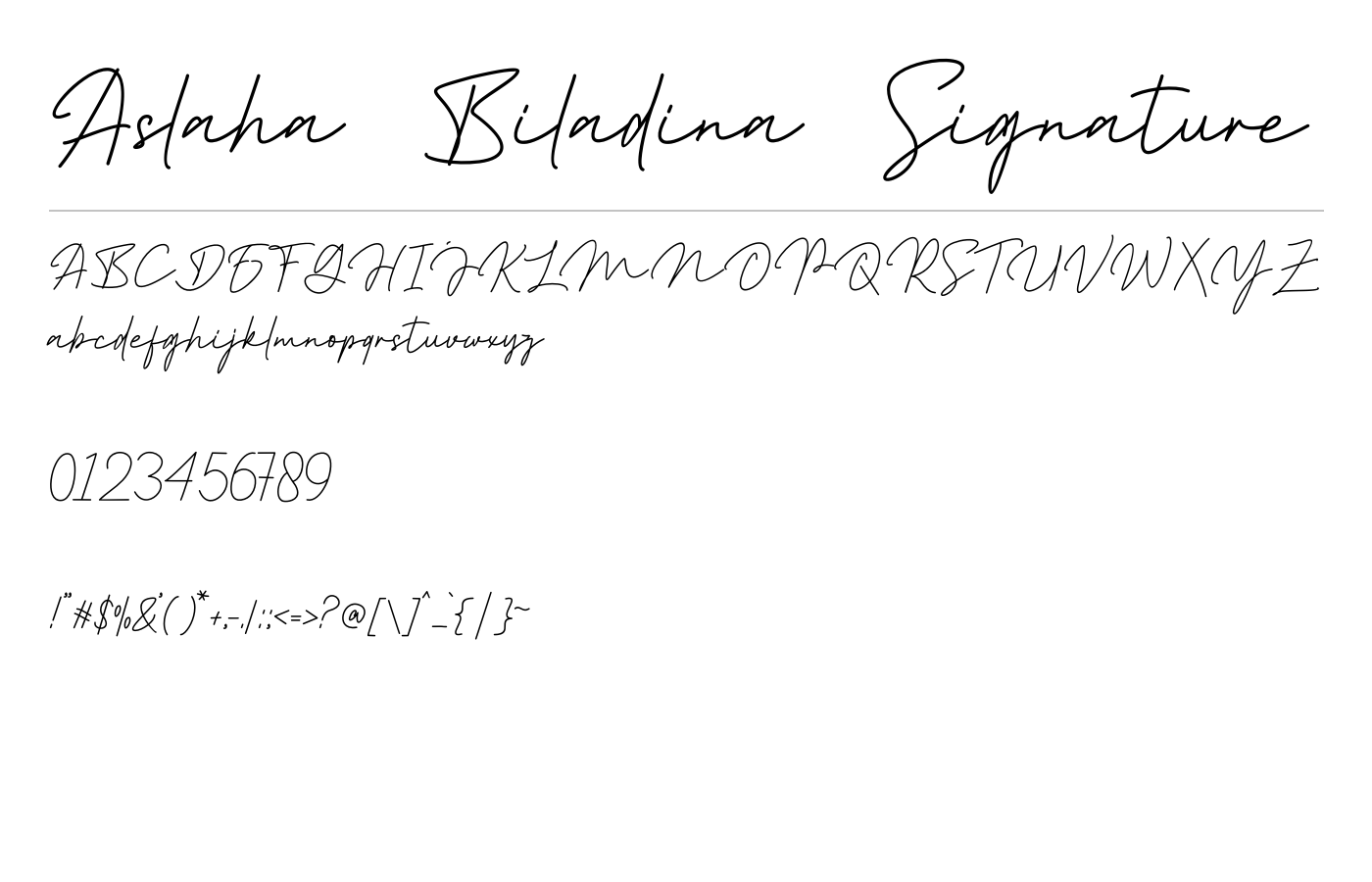
Aslaha Biladina Signature is a delicate, elegant script font that mimics natural handwriting with smooth, flowing strokes and a slim, airy presence. Its thin weight and graceful letterforms convey a personal, sophisticated feel, making it ideal for branding, invitations, and stylish editorial projects where a touch of refinement and authenticity is desired. This font works beautifully in logos and headlines where a classy yet approachable signature style can shine.
Aslaha Biladina Signature Font
About Aslaha Biladina Signature Font